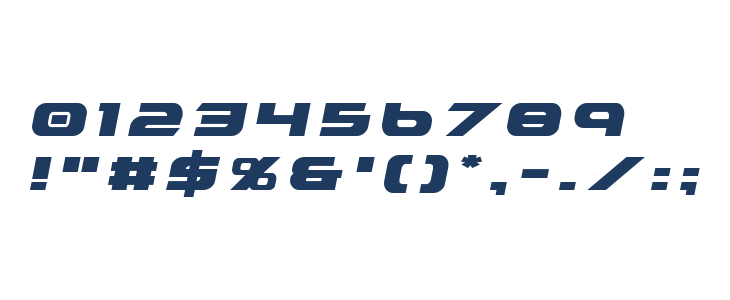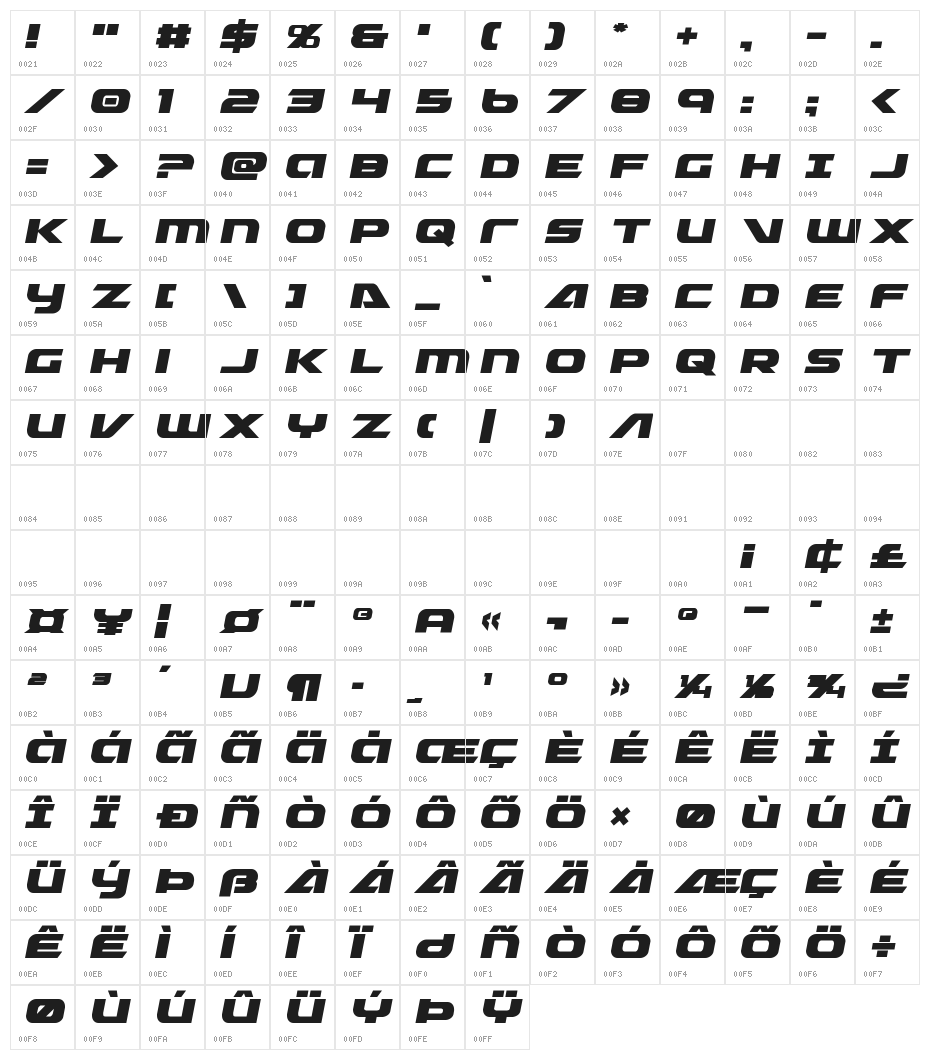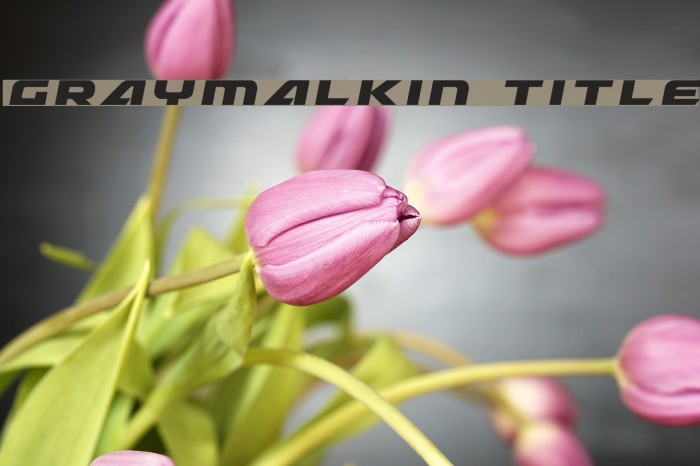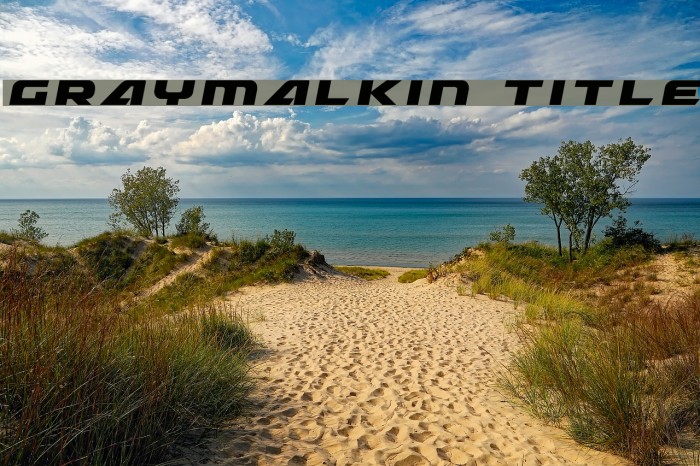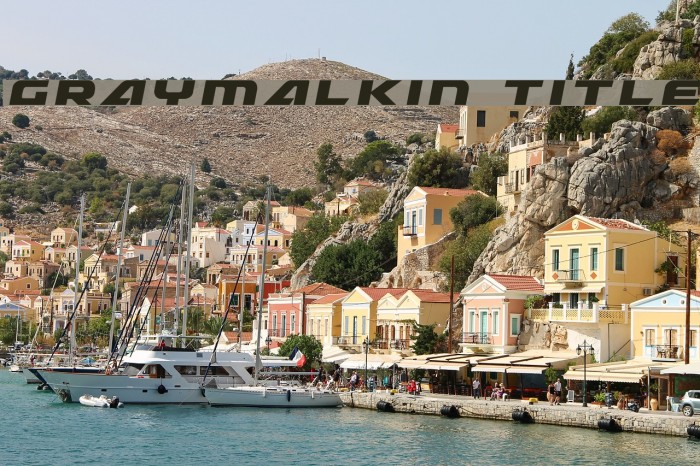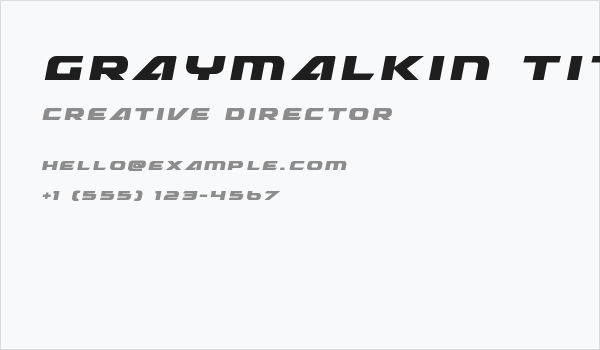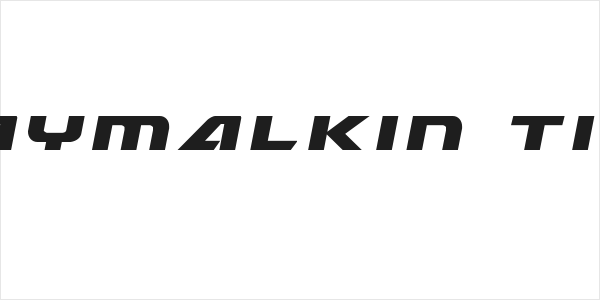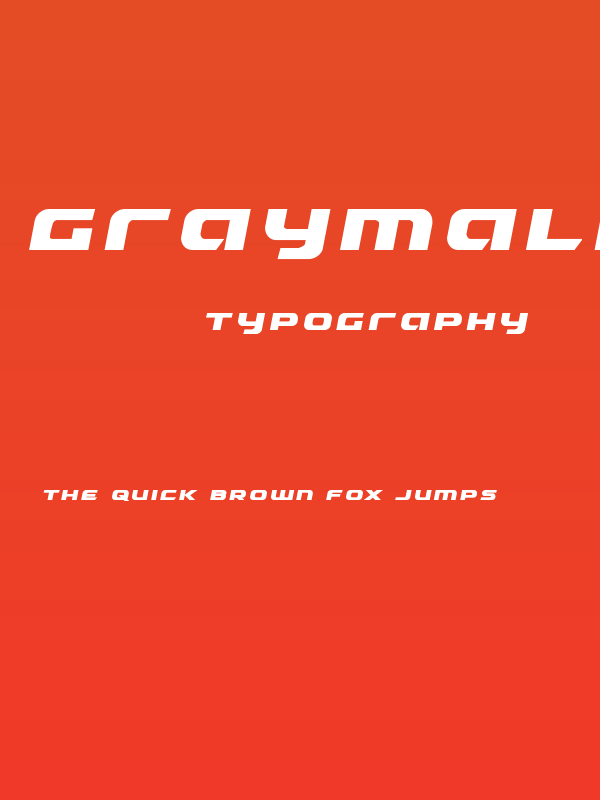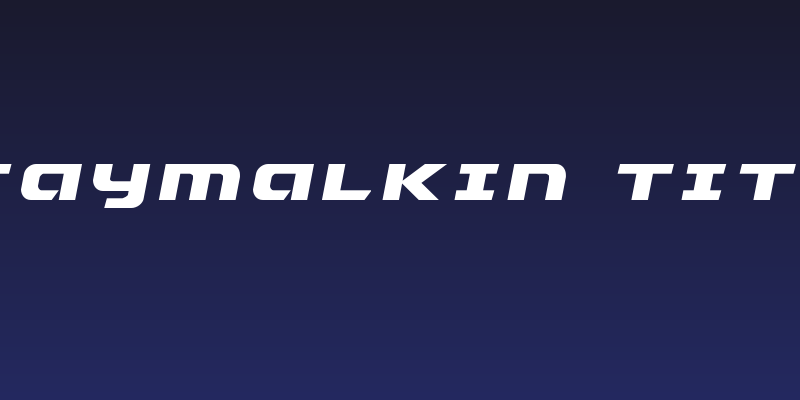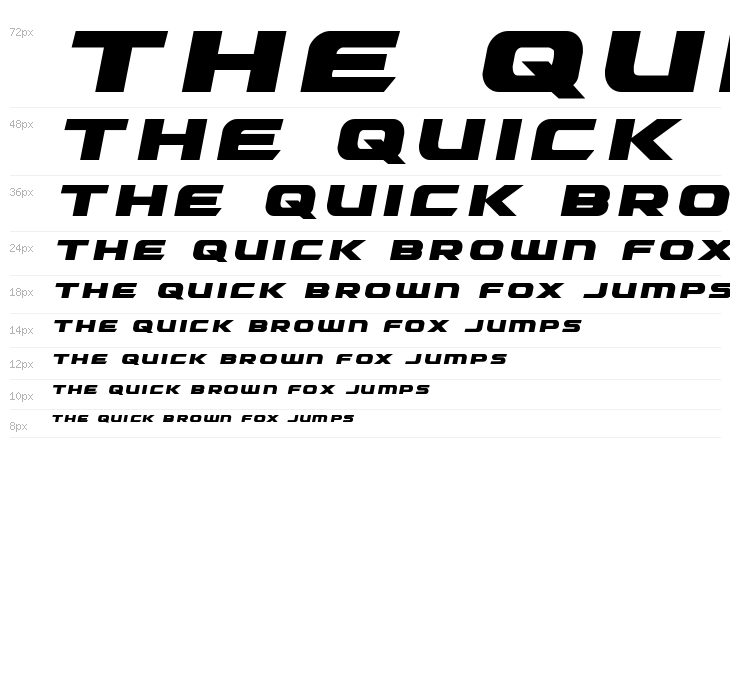
Graymalkin Title Font
Graymalkin Title Description
This font features a bold and dynamic style with a futuristic and angular design. The characters are slightly slanted, giving a sense of motion and speed. The strokes are thick and consistent, providing a strong visual impact. The uppercase and lowercase letters maintain a uniform width, contributing to a cohesive appearance. The numerals and special characters follow the same design principles, ensuring versatility across different uses. This font is ideal for projects that require a modern and energetic look.
Proposed ProjectsIdeal for sci-fi themed designs, video game titles, sports branding, and dynamic posters.